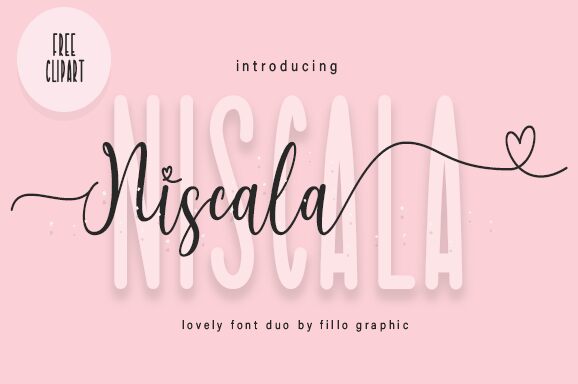
Niscala
Niscala, designed by Fillo Graphic, is a stunning semi-light calligraphy font perfect for adding an elegant touch to your design projects. With its graceful curves and flowing lines, this font exudes sophistication and refinement. It's perfect for use in wedding invitations, greeting cards, logos, and branding materials. Niscala's unique style is eye-catching and versatile - allowing it to be used in a variety of settings. Whether you're creating digital designs or printed materials, Niscala will elevate your project to the next level with its timeless elegance and charm.